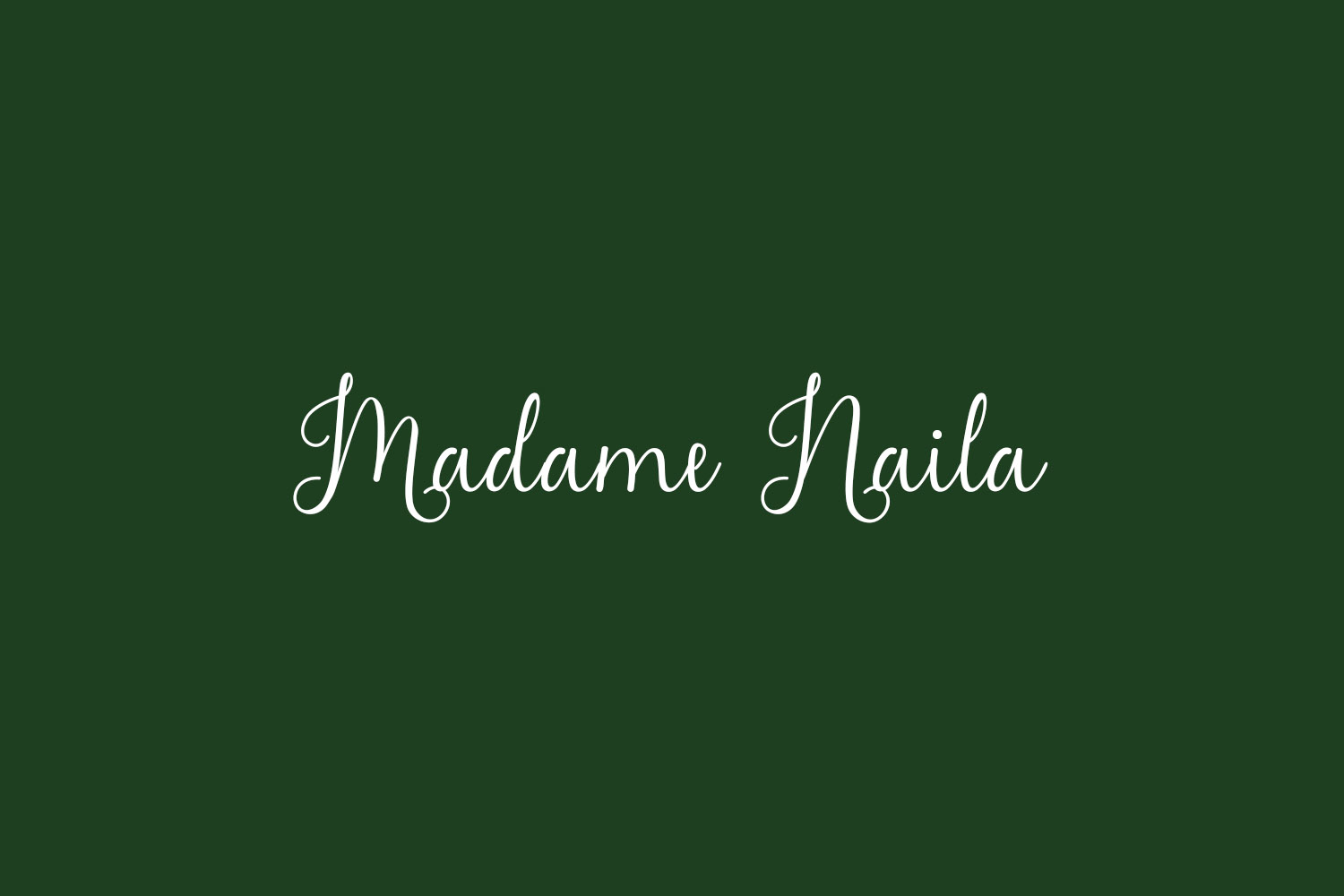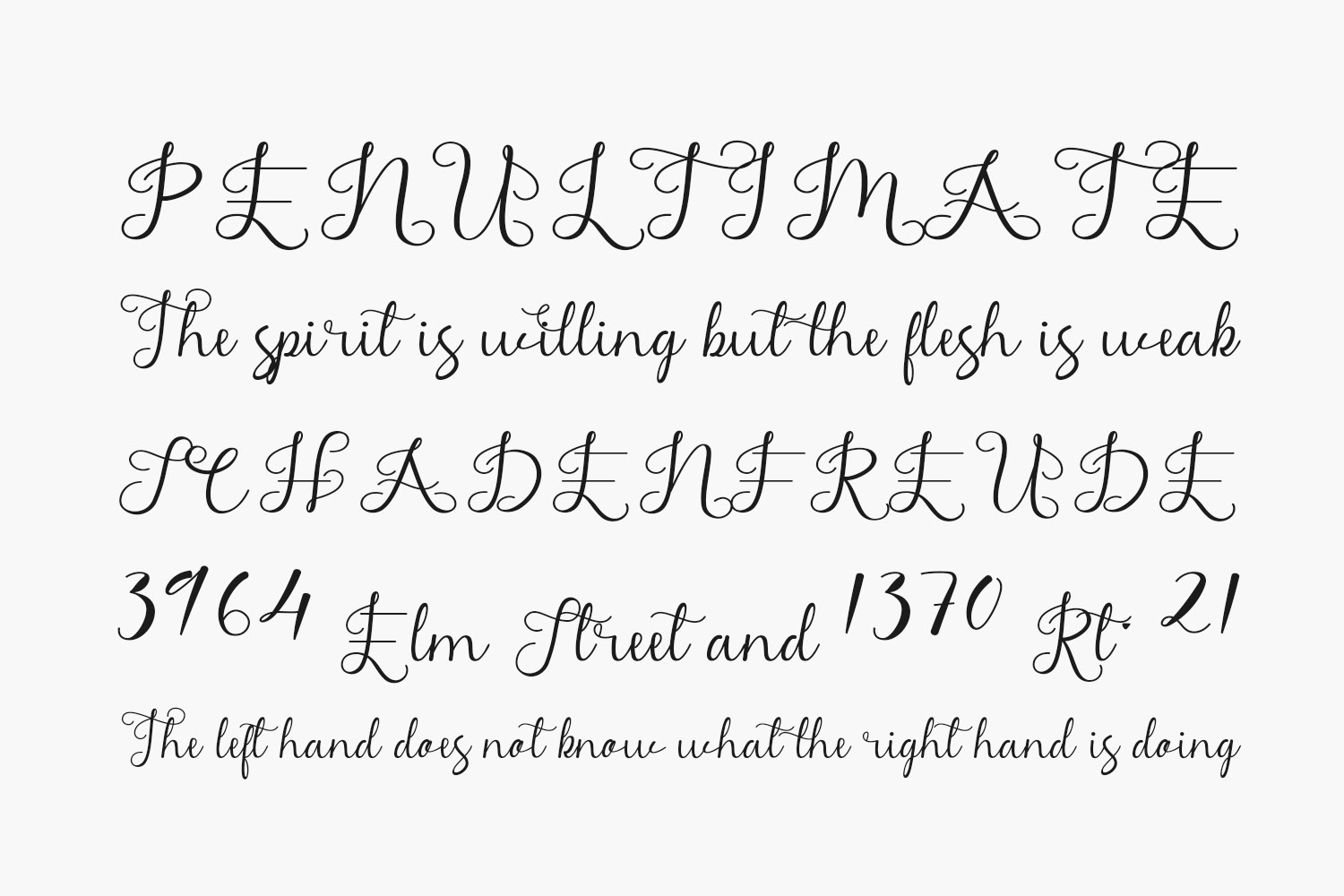
Madame Naila Free Font is a flowing handwritten font, described by an elegant touch, perfect for your favorite projects. Fall in love with its incredibly distinct and timeless style and use it to create spectacular designs. Madame Naila Free Font was designed by Selawetype is a demo and free for personal use only. Please purchase the full version for commercial use.